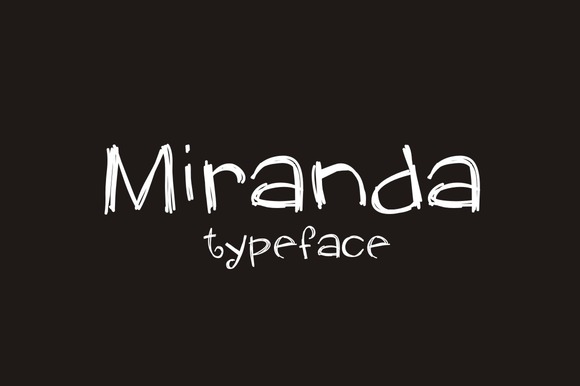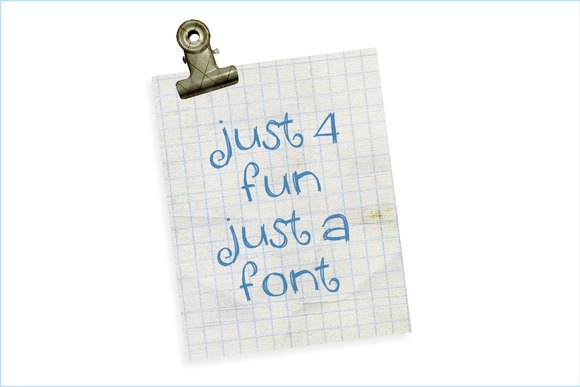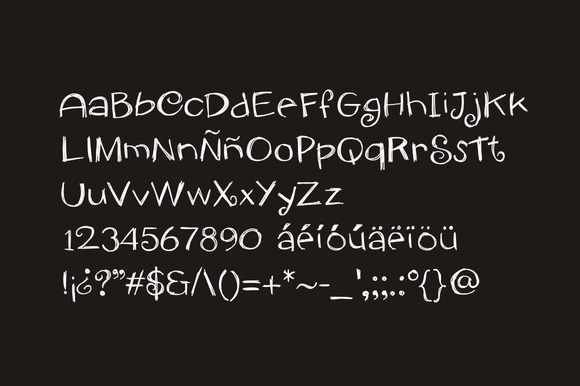
Miranda Font
About Miranda Font
Miranda is a fun and childlike typeface. It will give your design a playful touch and it imitates a great chalk effect. It can be used for various purposes such as headings, logos, invitations, t-shirt designs, greeting cards, posters, labels, book covers, brochures, and much more!